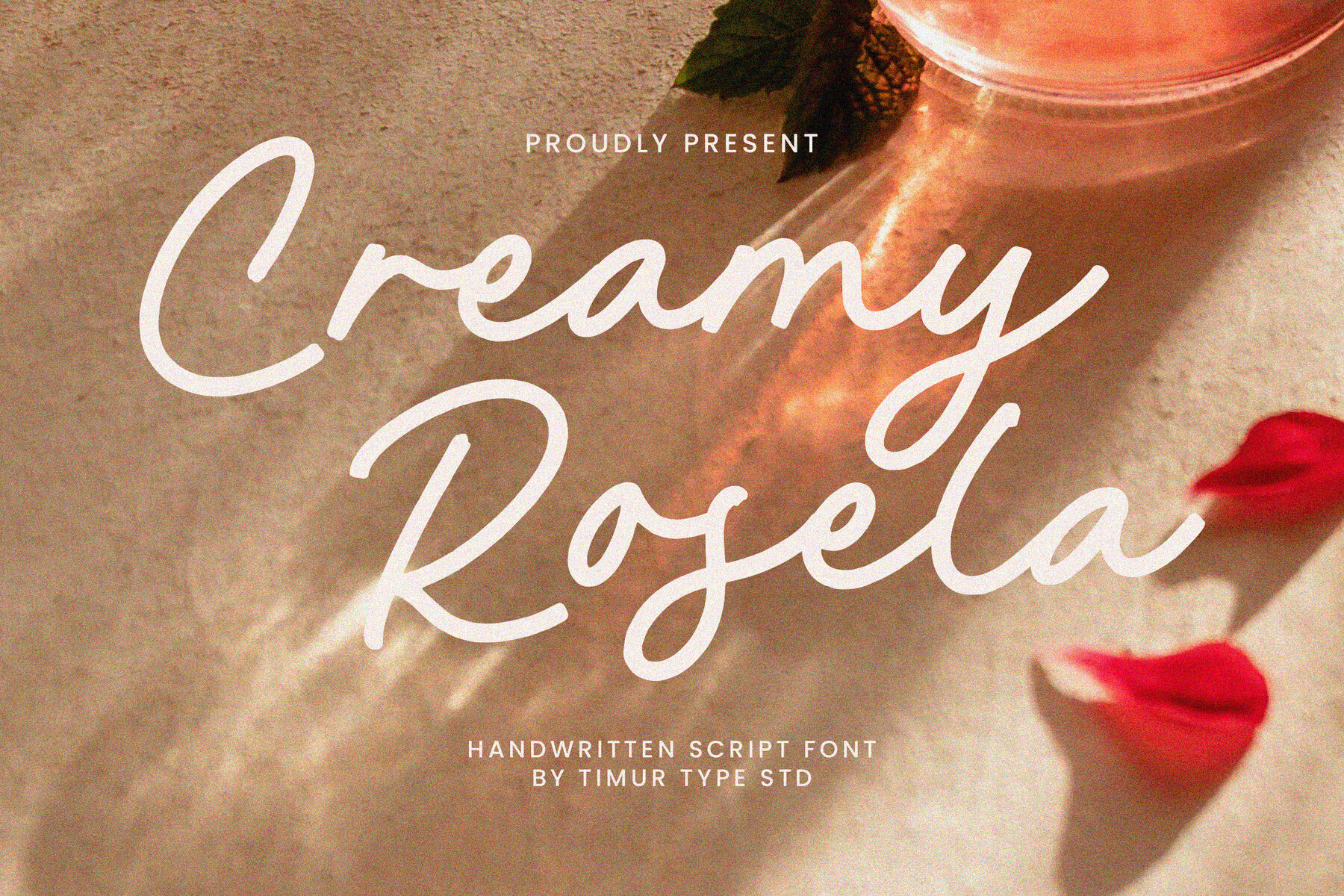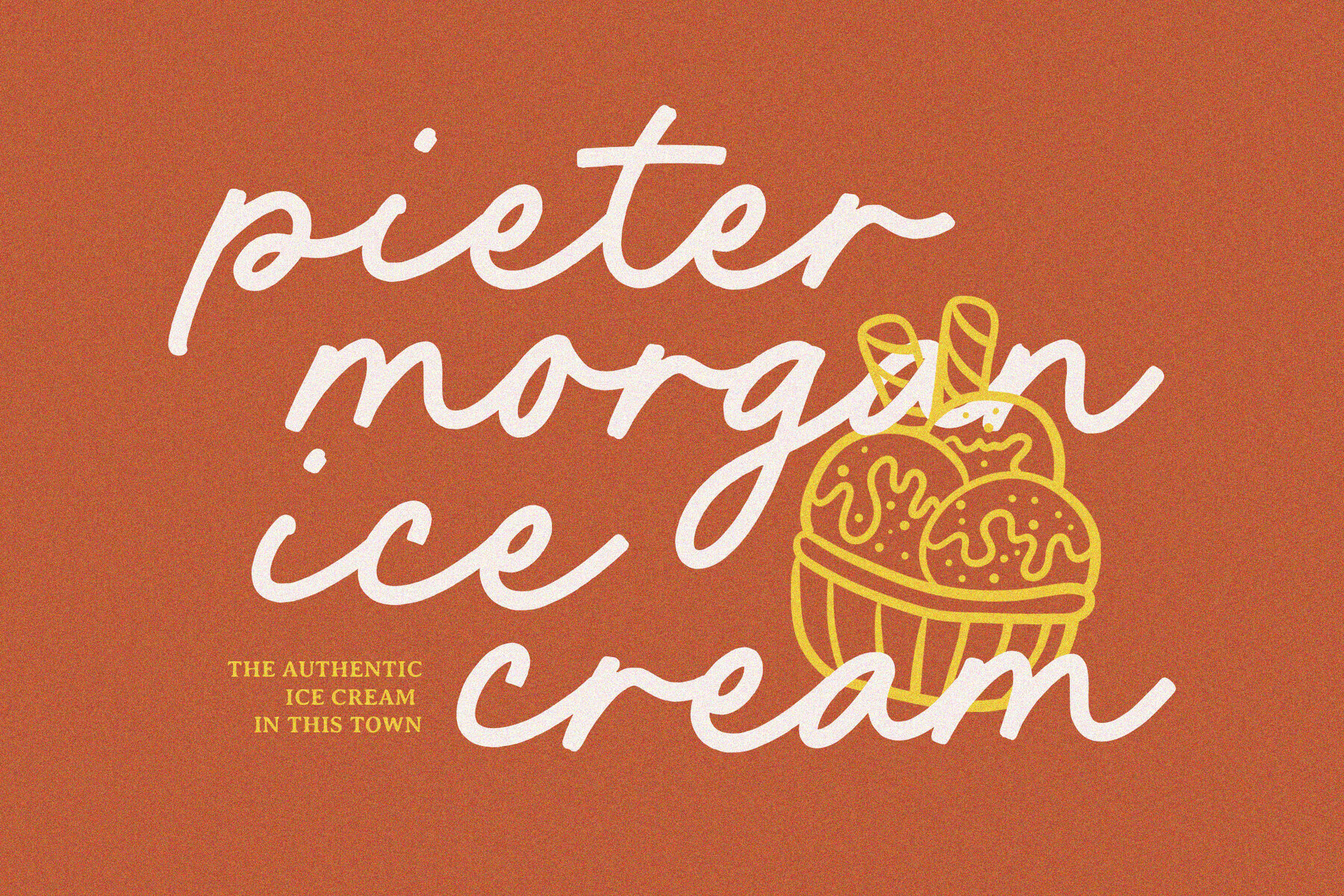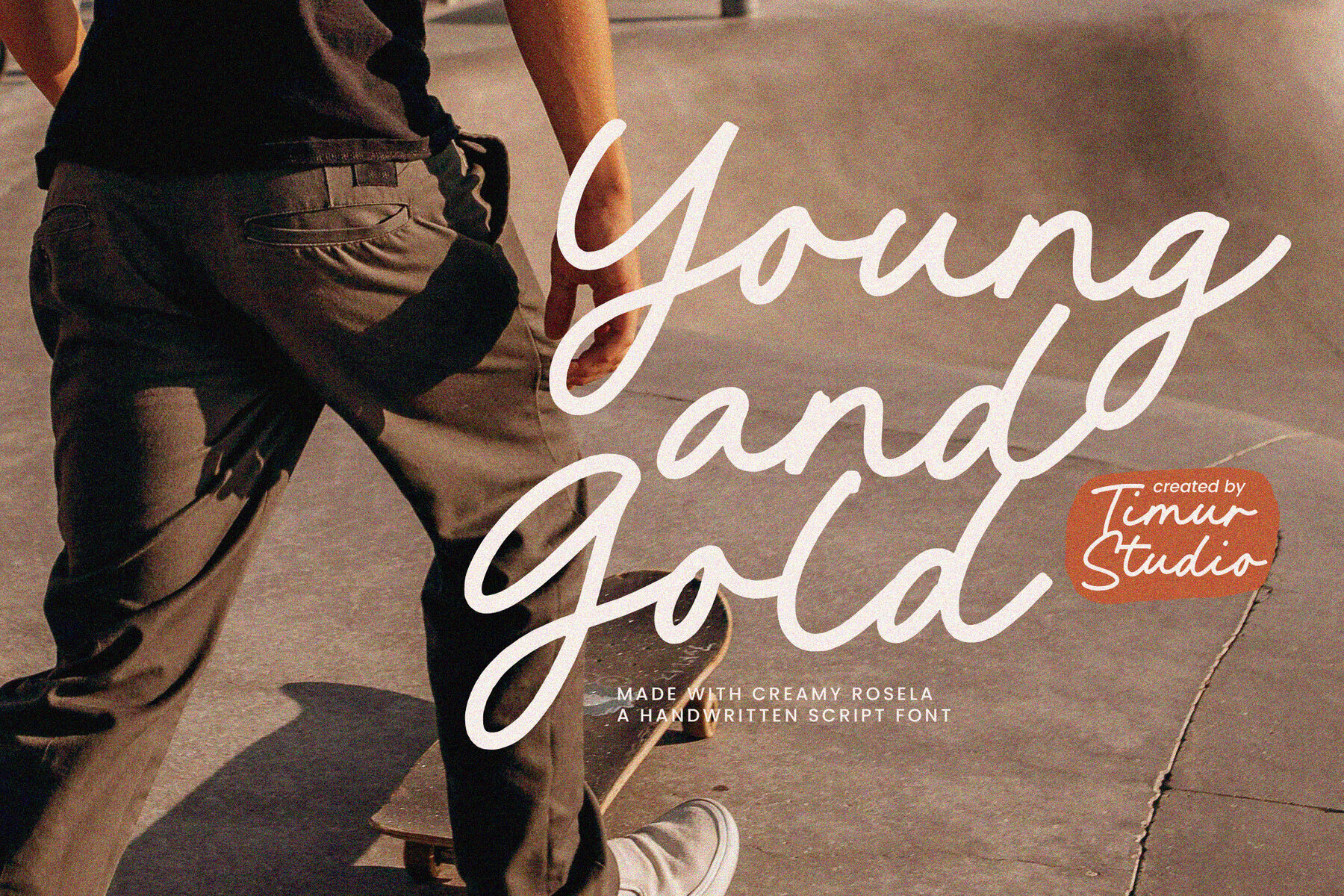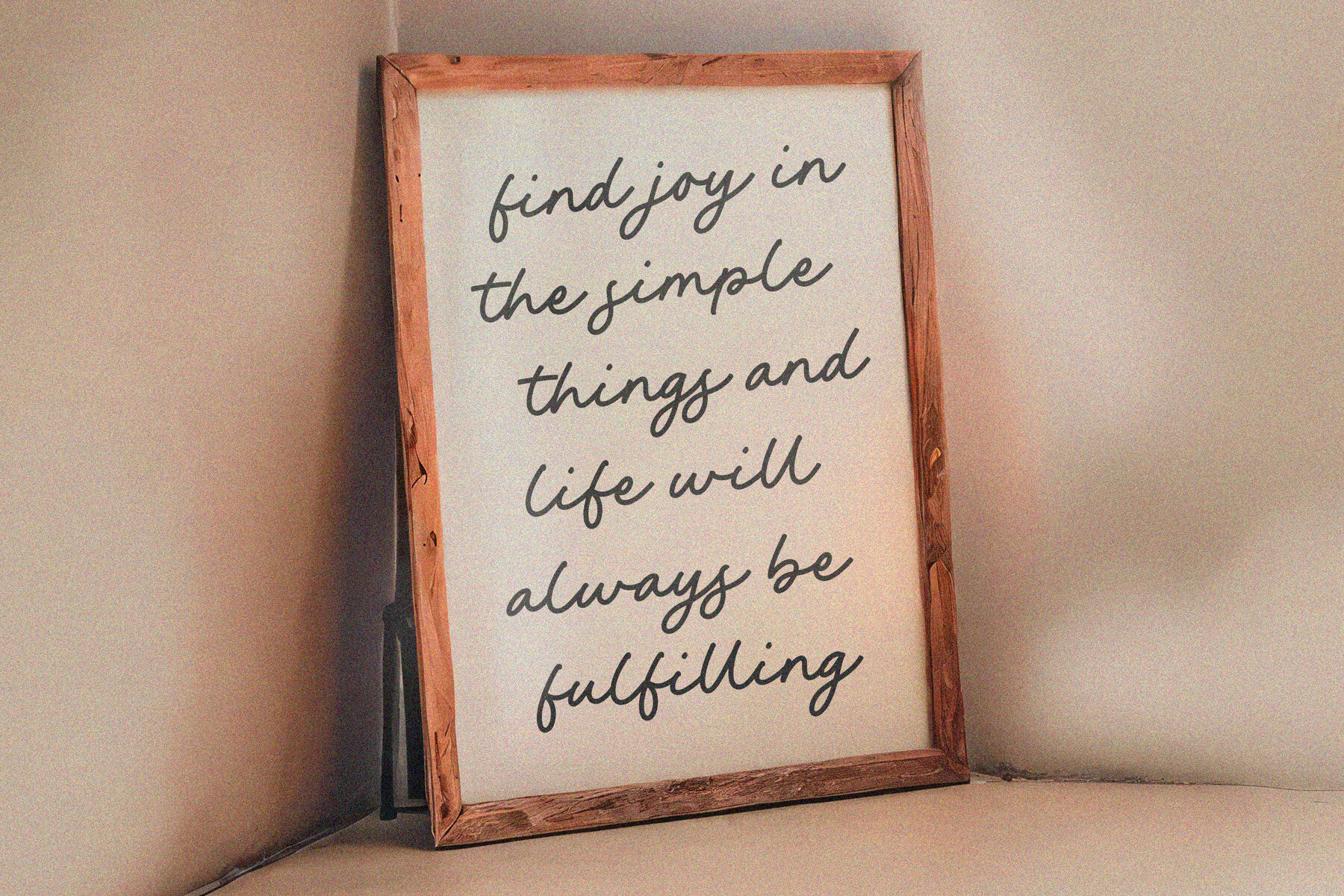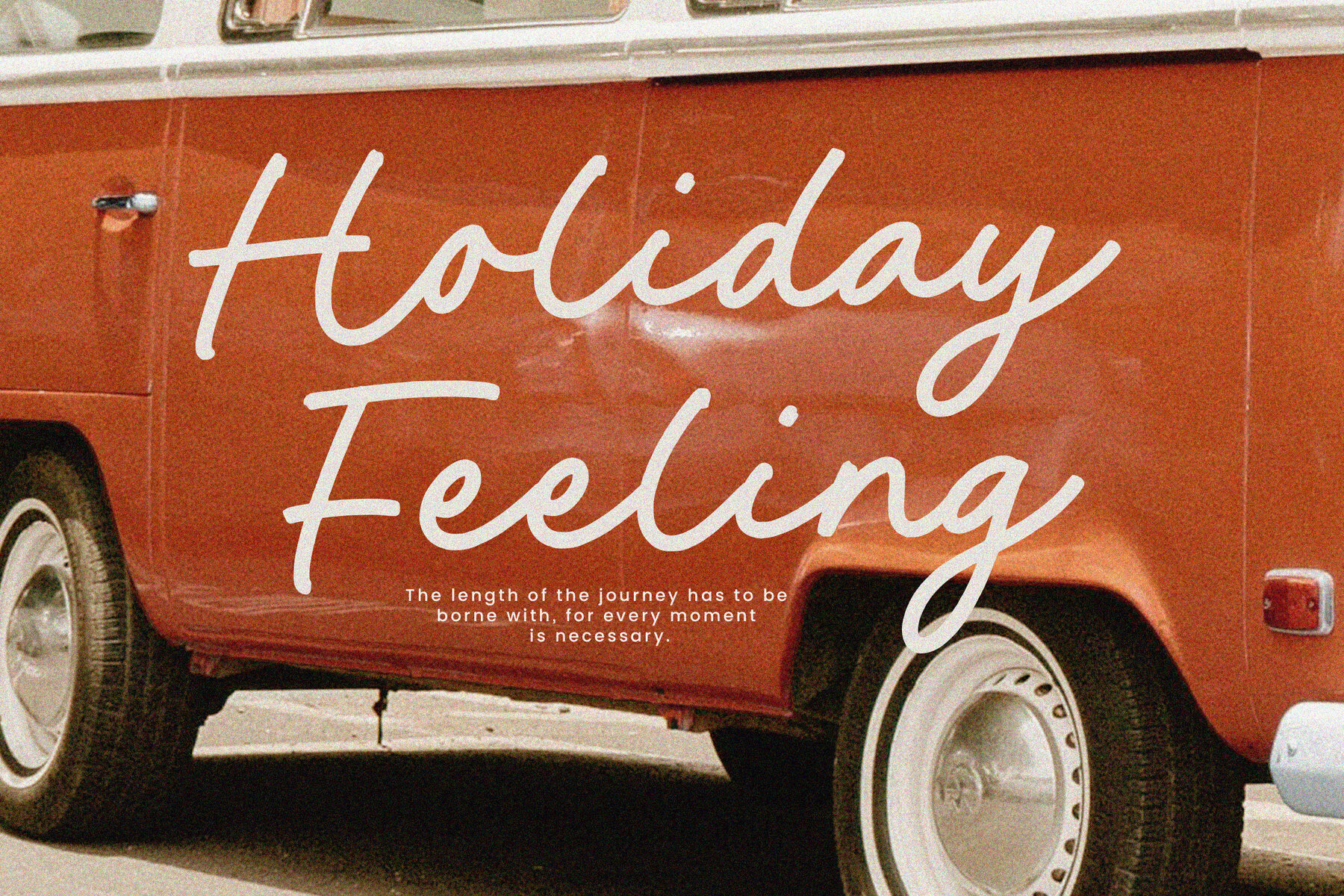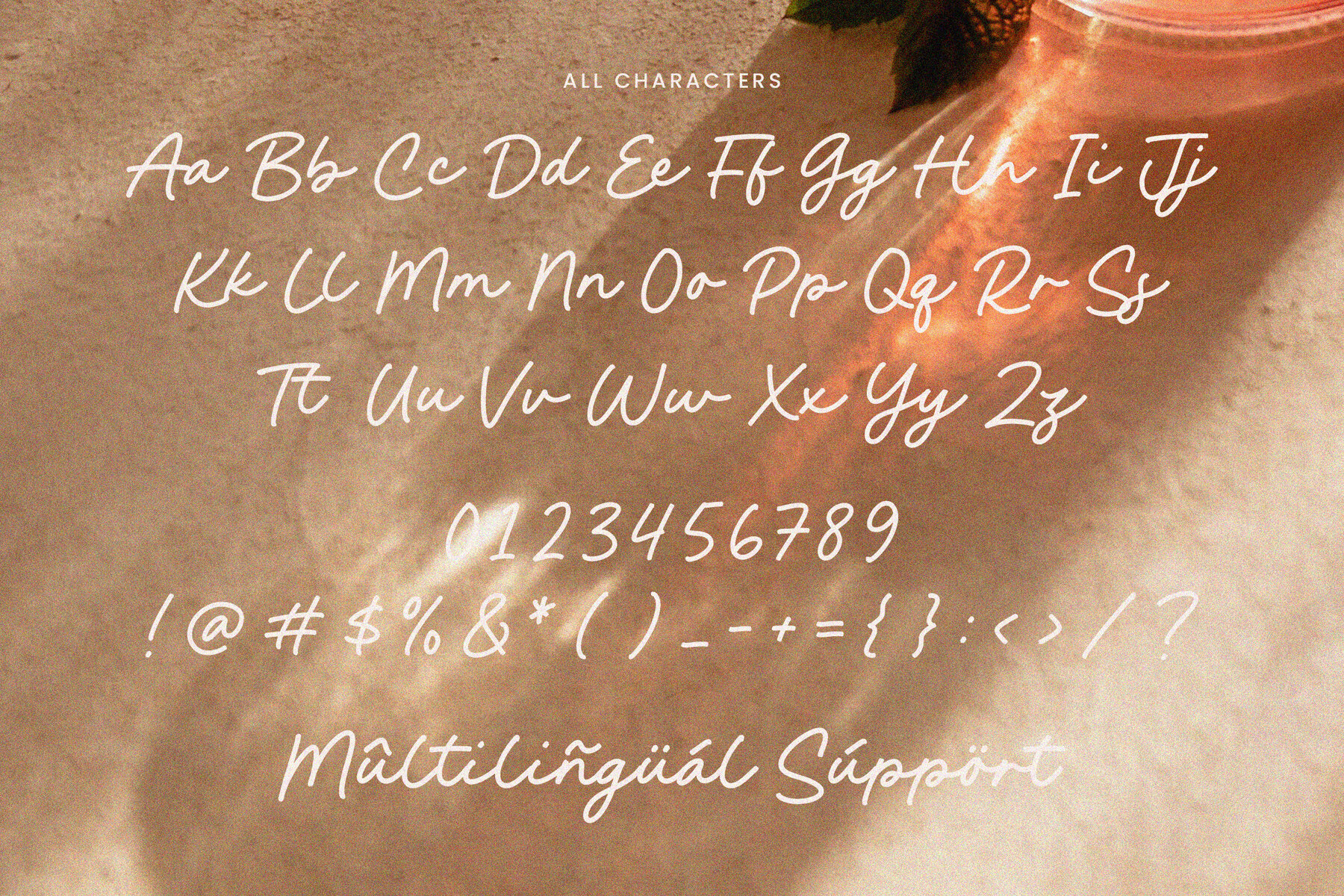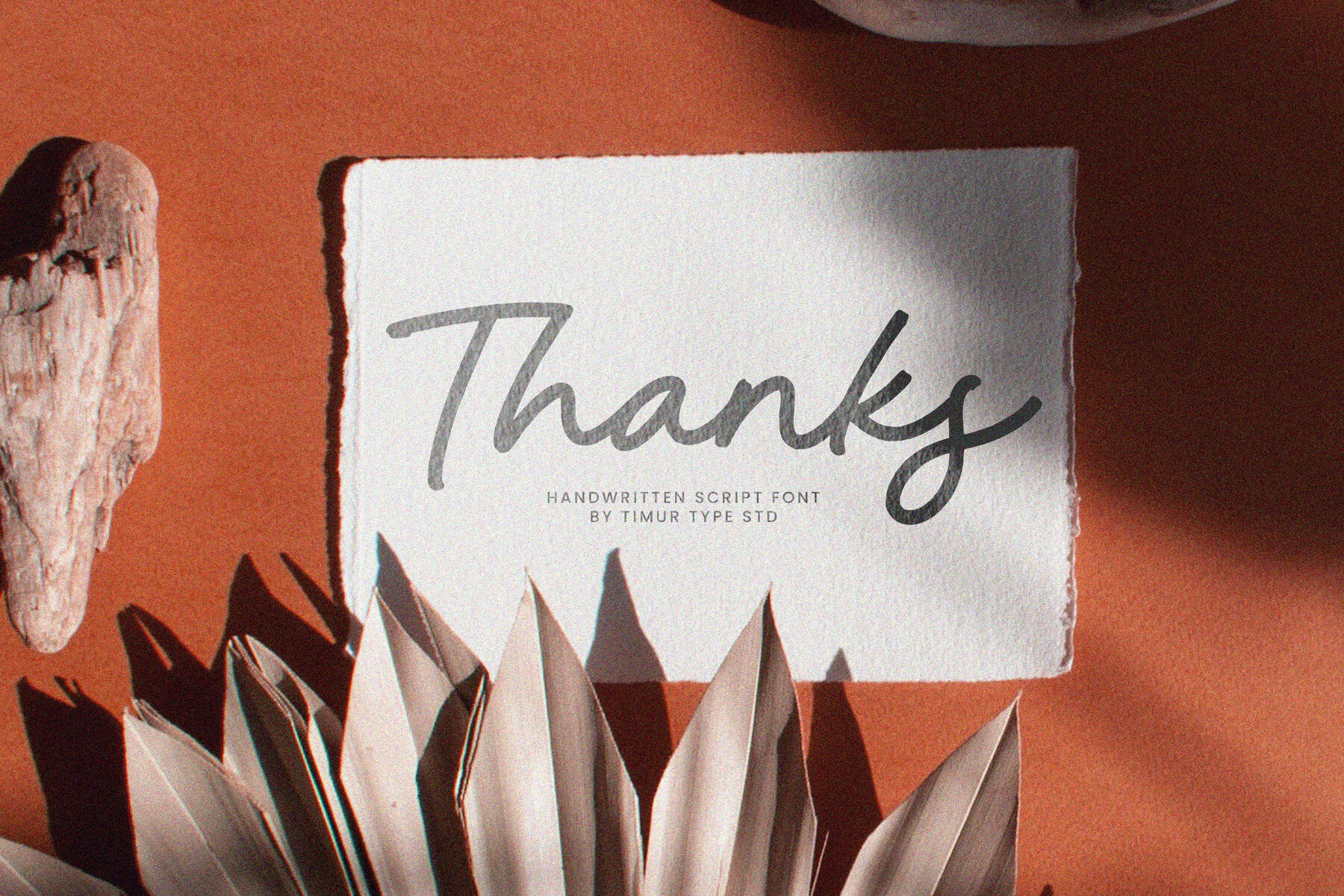
Creamy Rosela
Creamy Rosela is a stylish handwritten script font featuring smooth, flowing lines and a natural, elegant charm. Perfect for branding, invitations, logos, and creative projects, it adds a personal and sophisticated touch with its delicate curves and modern aesthetic.